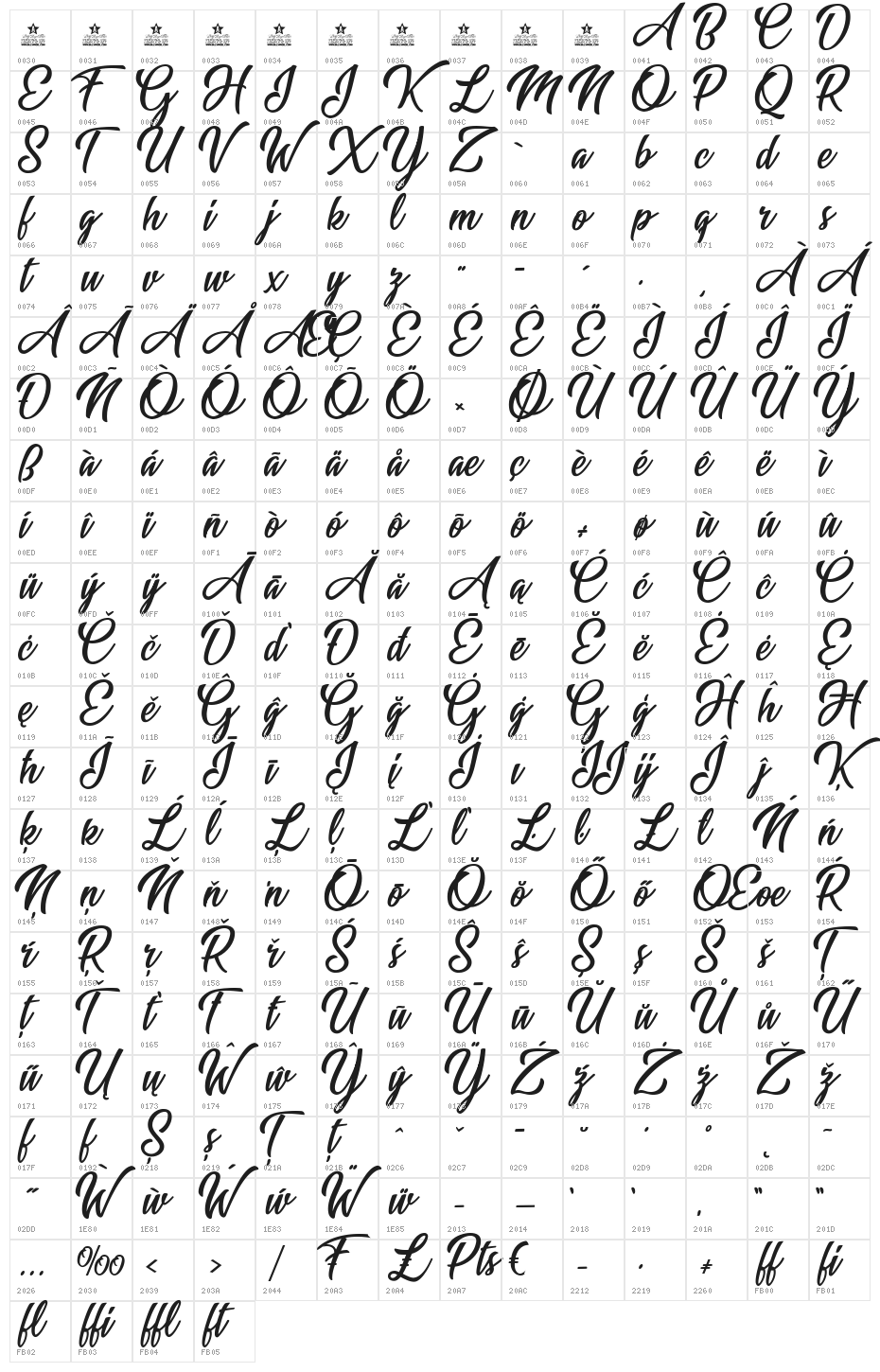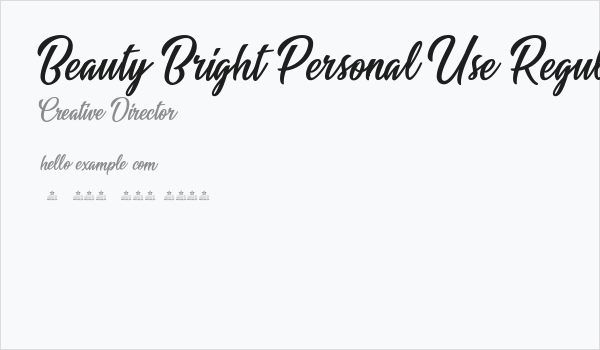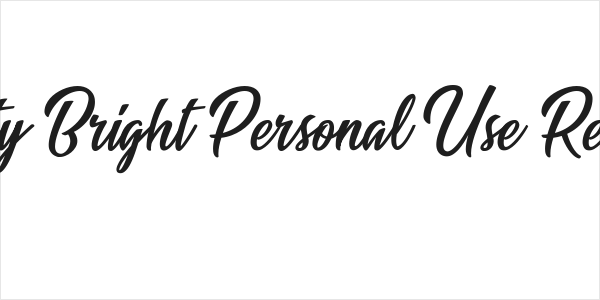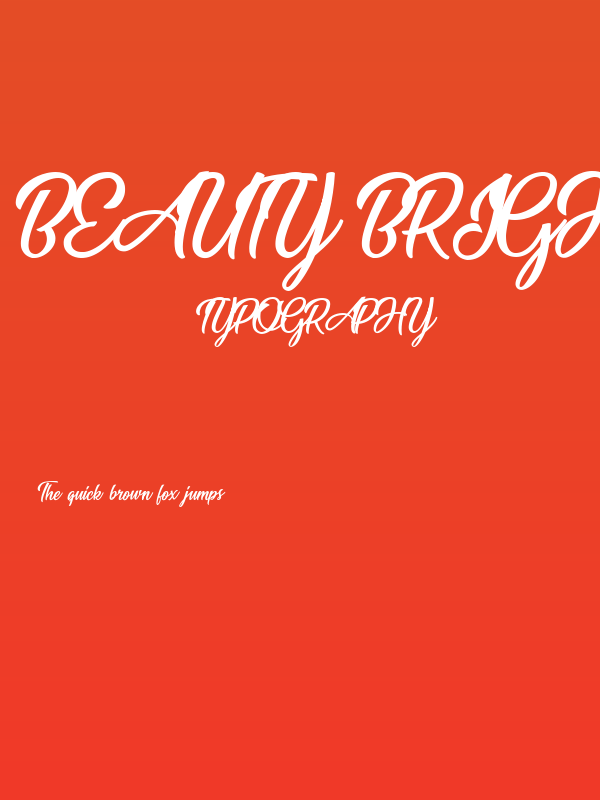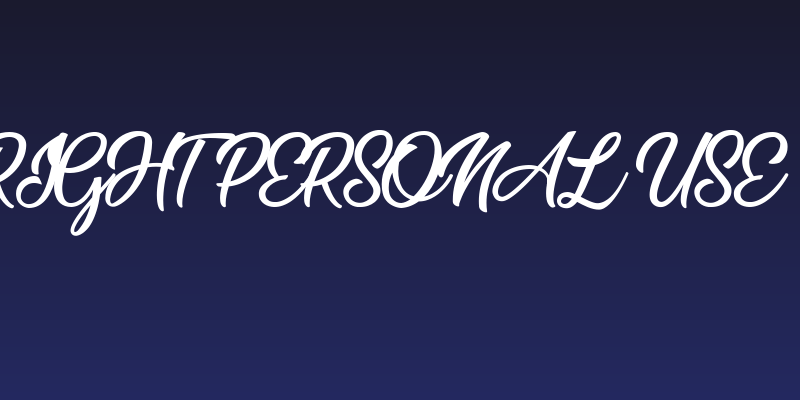
Beauty Bright Personal Use Regular Font
Beauty Bright Personal Use Regular Description
This font features a flowing, cursive style with elegant, sweeping lines that create a sense of movement and grace. The uppercase letters are bold and prominent, with distinctive loops and curves that add a touch of sophistication. The lowercase letters maintain the same fluidity, with a slightly more compact form that complements the uppercase characters. The numbers and special characters are designed with the same attention to detail, ensuring consistency throughout the font. This script style is both decorative and legible, making it suitable for a variety of creative applications.